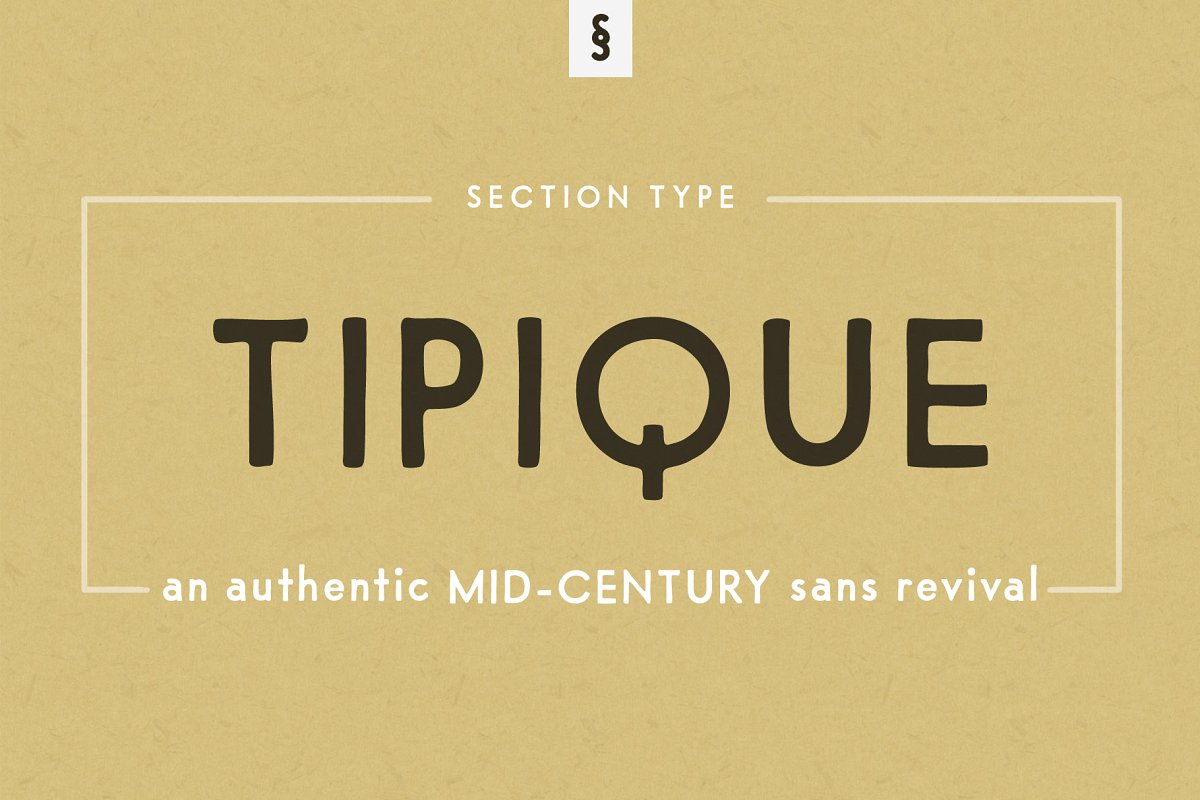
Tipique Font
Tipique Font is perfect for typical everyday branding, characteristic local businesses, representative community communications, standard service companies, quintessential neighborhood marketing, archetypal small business identities, conventional retail signage, and classic advertising campaigns. This characteristic typeface works beautifully in both digital applications and print media where familiar reliability and typical excellence are essential design elements.
What makes Tipique Font so exciting is its authentic interpretation of quintessential design principles through characteristic letterforms that embody the same reliable quality and typical excellence that defines the most trusted and representative examples of their kind. The font features archetypal characters with standard proportions, conventional curves, and characteristic details that communicate dependability, familiar quality, and the quintessential standards that customers expect from typical service providers and representative businesses. Its reliable personality and conventional heritage make it ideal for local businesses seeking to establish characteristic credibility while appealing to community members who value typical quality and the archetypal excellence of standard service delivery.
The Tipique Font family includes multiple weight variations with different characteristic intensities, along with standard alternates and conventional ornamental elements. Each style maintains the typeface's typical character while offering comprehensive character sets including standard numerals, conventional punctuation marks, and special symbols designed to enhance representative communications and archetypal branding efforts across various typical contexts.
This extraordinary typeface represents the perfect fusion of characteristic quality and contemporary design functionality for typical service and community industries. Whether you're developing quintessential local business identities, creating standard service materials, or designing conventional community campaigns, Tipique Font Free Download provides the characteristic reliability and versatility needed to connect with typical community audiences. The font's archetypal appeal makes it particularly effective for local restaurants, conventional service providers, standard retail businesses, and organizations representing the quintessential quality and typical excellence that defines reliable community commerce.
The carefully crafted characteristic details and optimized typical performance in Tipique Font ensure both archetypal authenticity and clear communication across all conventional applications. Its reliable presence makes it perfect for standard branding, typical marketing materials, and conventional communications where its full characteristic nature can create lasting trust and establish immediate association with dependability, familiar quality, and the quintessential standards that define truly typical excellence in community business.